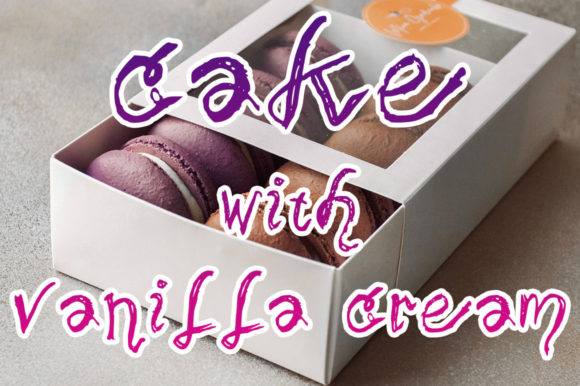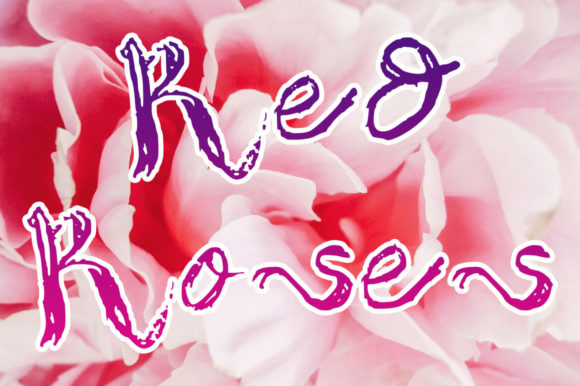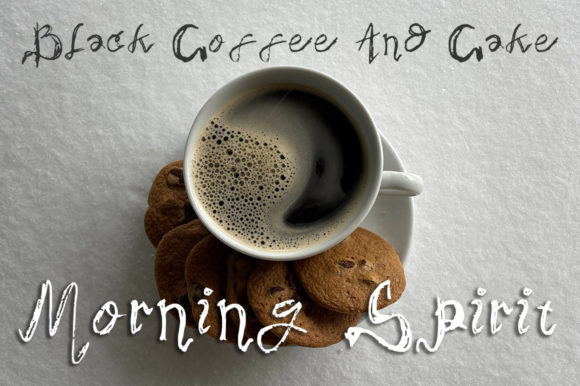
Introduction to Kemped Font
Have you ever stared at a blank canvas, waiting for that perfect spark of inspiration to strike? For many designers, the moment of creativity can be a thrill that sets the entire project in motion. As you sit at your desk, brainstorming ideas and experimenting with different fonts, you stumble upon something that catches your eye – Kemped Font. Its beautiful, quirky handwriting style is the perfect addition to any creative project.
Whether you’re a seasoned designer or just starting out, Kemped Font is a valuable resource that can elevate your designs to the next level. With its high-quality characters and transparent background, you can easily integrate it into your projects, from social media logos to product packaging. And the best part? Kemped Font is available for free download, making it an accessible design resource for creatives of all levels.
Key Features of Kemped Font
- Unique and creative design, ideal for various creative projects.
- High-quality font with a transparent background, allowing for versatile usage.
Honest Review: Kemped Font
I recently stumbled upon the Kemped Font while searching for a high-quality design resource for my creative project. I was immediately drawn to its sleek and modern aesthetic, which made it perfect for my design needs.
Here’s what I like about the Kemped Font: ✨ It’s a free download, which is always a bonus when it comes to finding design resources. ✨ The font is available in various weights and styles, making it versatile for different design applications. ✨ The transparent background allows for seamless integration into any design project.
Overall, I’m impressed with the Kemped Font. It’s a high-quality design resource that’s perfect for personal projects or small-scale design work. While it may have some limitations, I believe it’s a valuable addition to any designer’s toolkit.
- Available in various weights and styles
- Limited character set
For the most out of the Kemped Font, use it sparingly to create a bold statement. Common use cases include creating headings for a website, designing business cards, or adding a touch of elegance to a wedding invitation.
Alternatives to Kemped Font
Open Sans is a popular, high-quality sans-serif font ideal for creative projects that require a clean and modern design. It’s available for free download and comes in a variety of weights and styles. When to use: body text, headings, and titles in a creative project. How it compares to Kemped Font: While Kemped Font has a more distinctive, handwritten feel, Open Sans is more versatile and suitable for a wide range of design applications.
Montserrat is a geometric sans-serif font with a high level of detail, perfect for designers who want to add a touch of sophistication to their creative project. It’s available for free download and features a transparent background, making it easy to use in various design scenarios. When to use: headings, titles, and body text in a design that requires a modern and urban feel. How it compares to Kemped Font: Montserrat is more geometric and structured than Kemped Font, making it a great choice for designs that need a sense of order and precision.